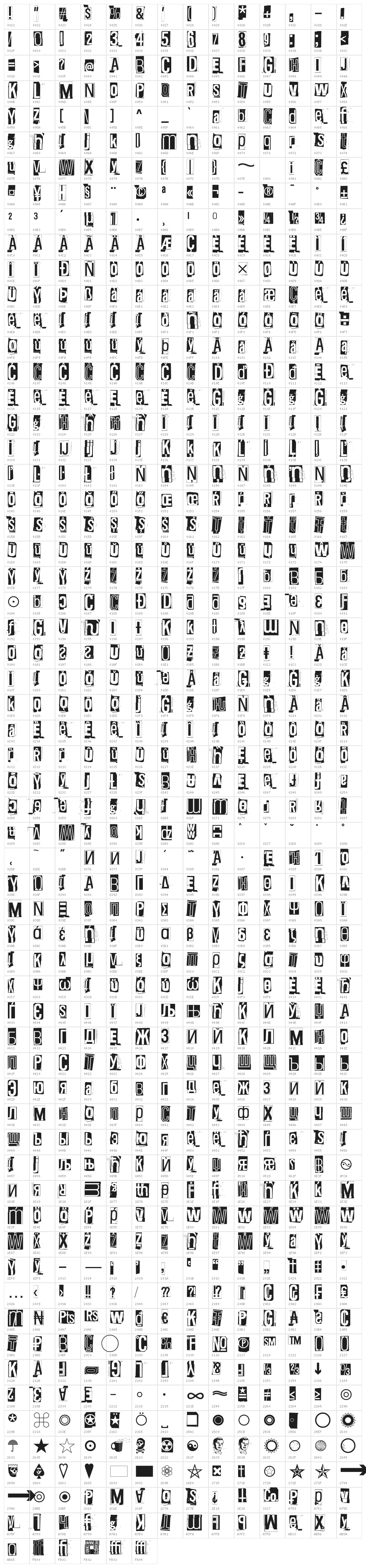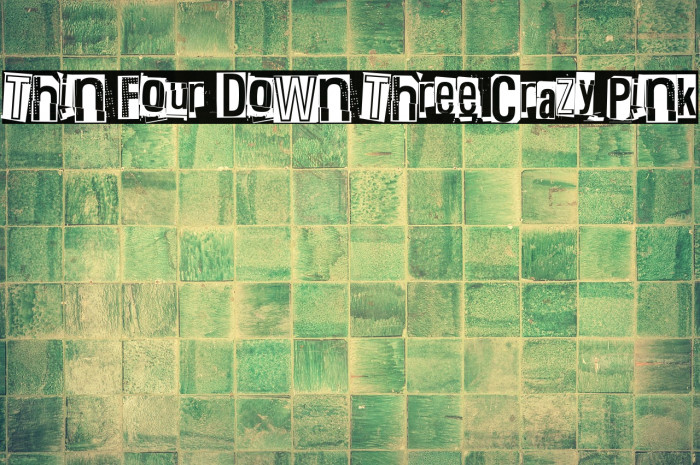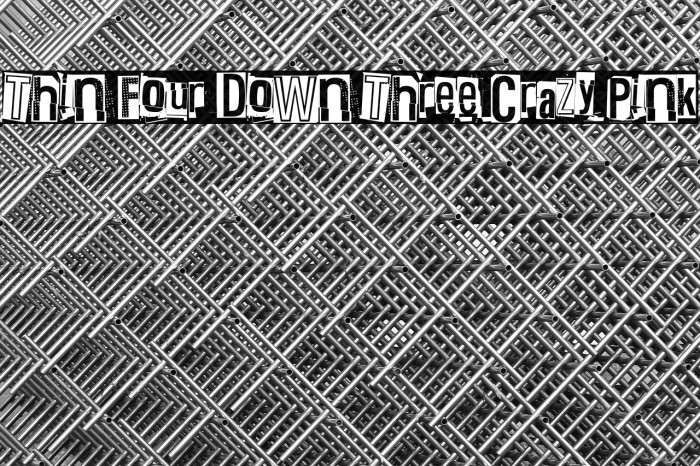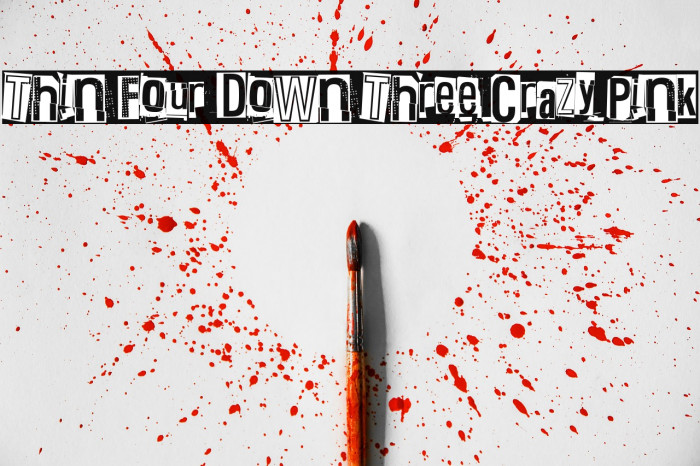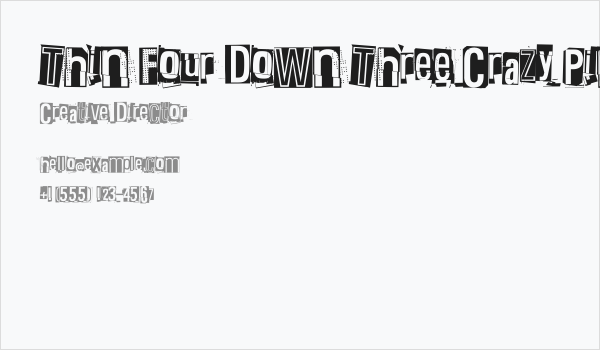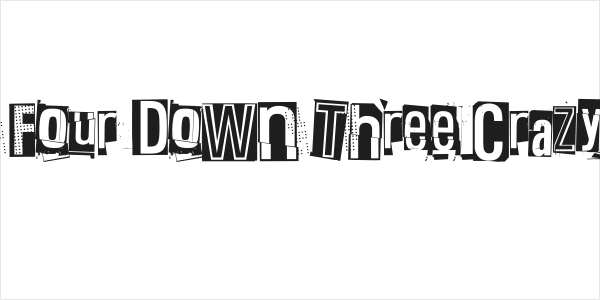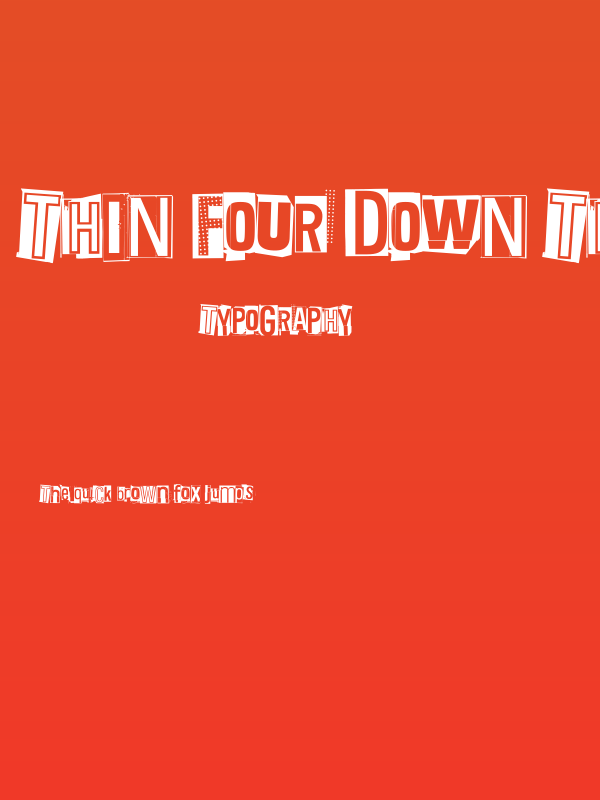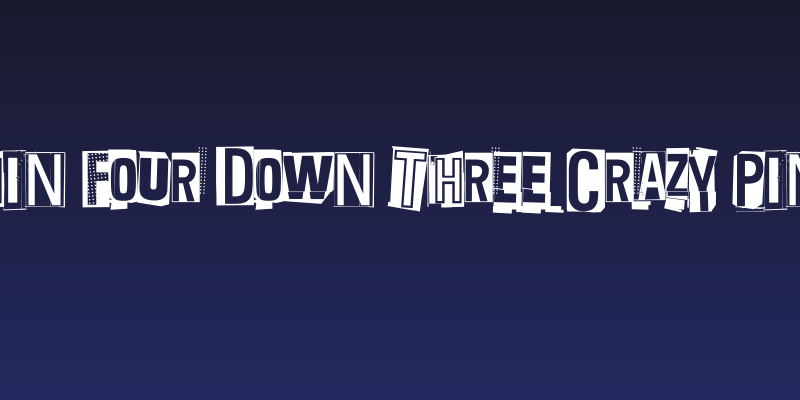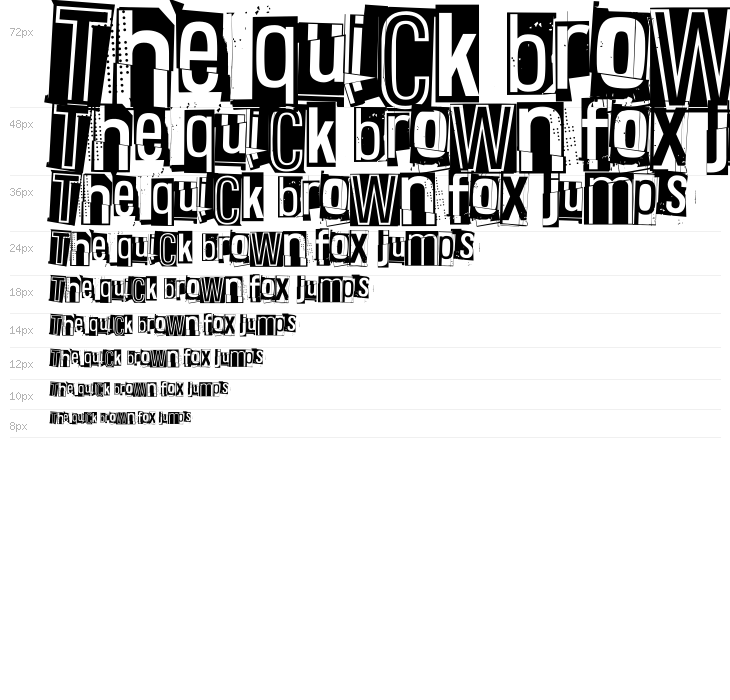
Thin Four Down Three Crazy Pink Font
Thin Four Down Three Crazy Pink Description
A chaotic and eclectic font with a collage-like appearance, featuring a mix of styles and textures, reminiscent of cut-out magazine letters.
| Use Case | Headlines, Artistic designs |
| Proposed Projects | Posters, album covers, artistic projects. |